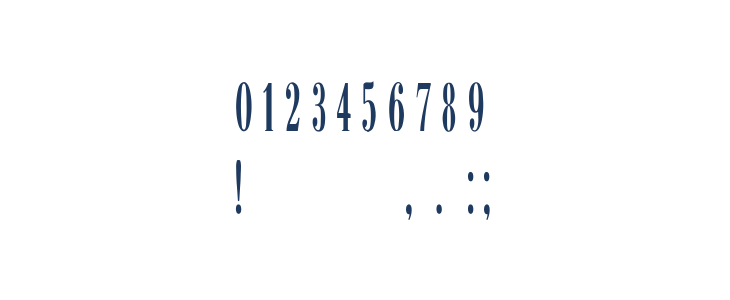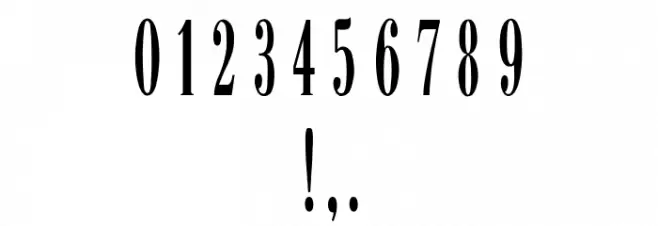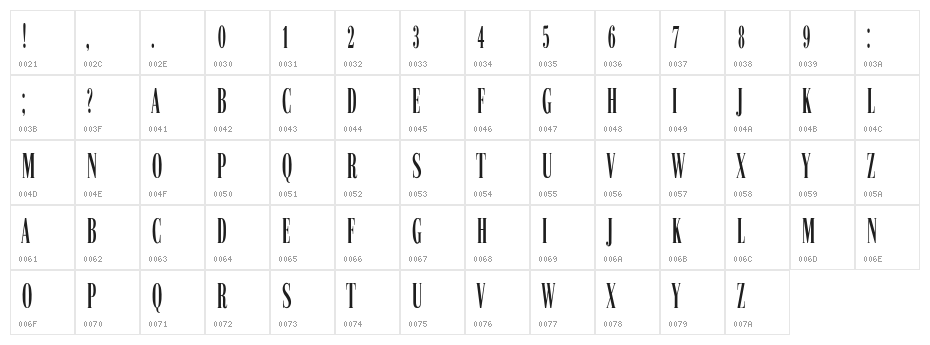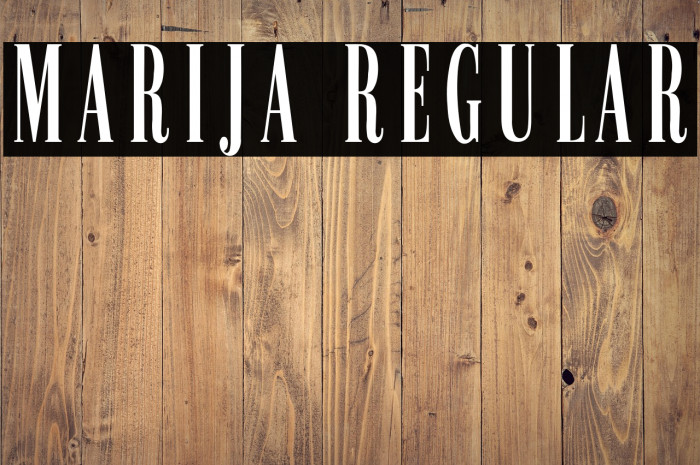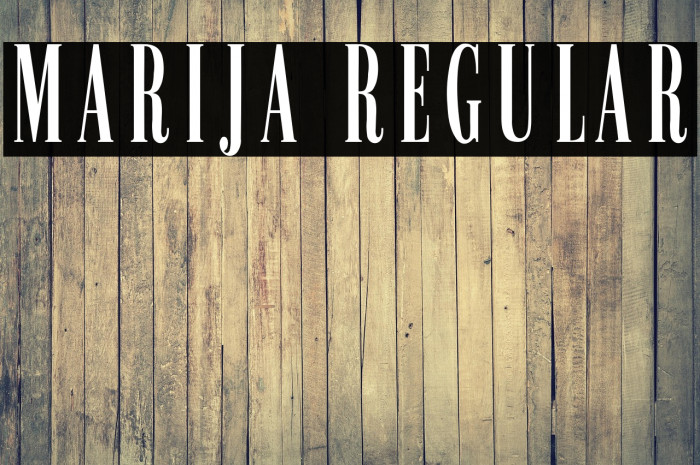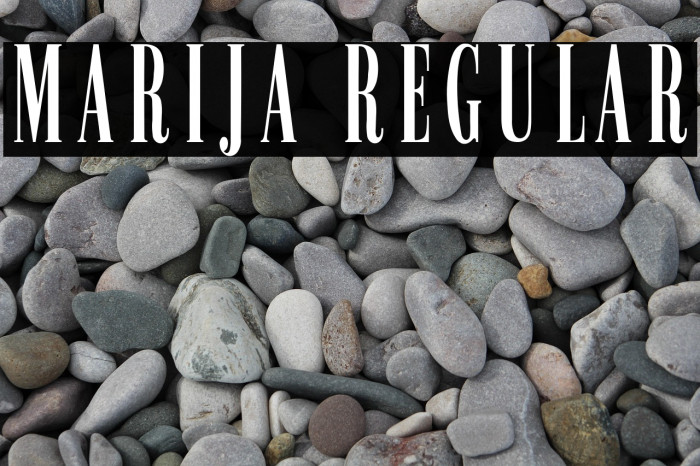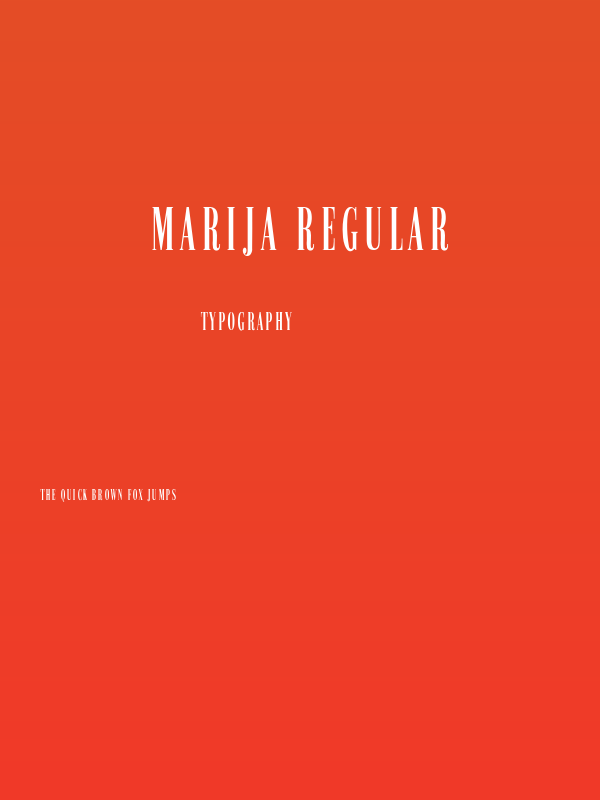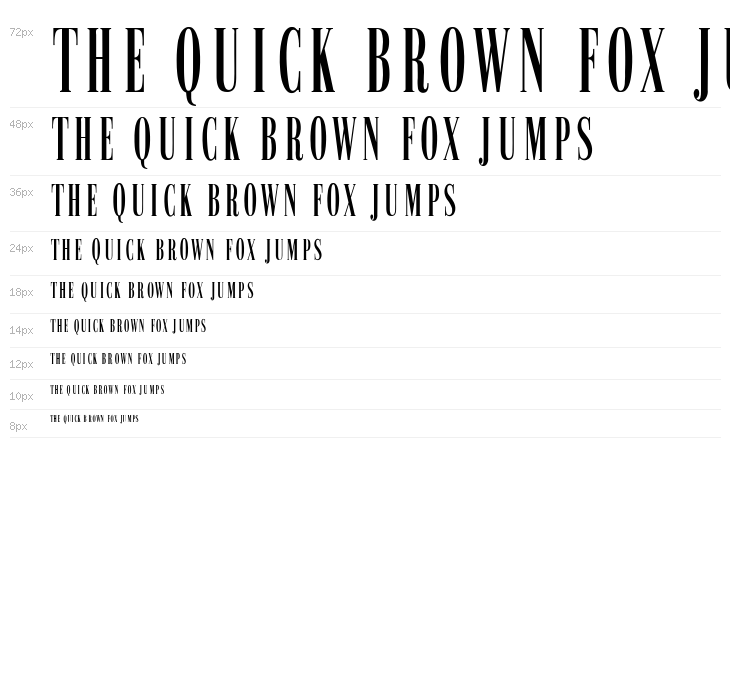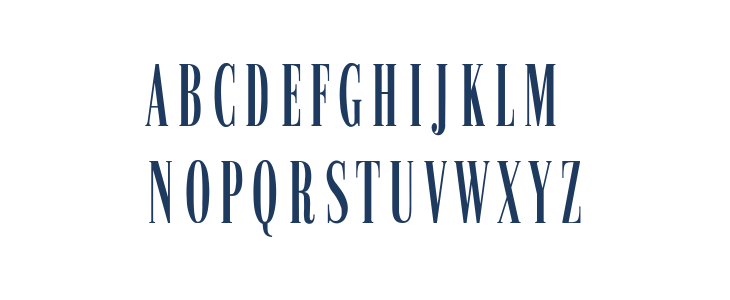
Marija Regular Font
Marija Regular Description
This font features a tall, elegant design with high contrast between thick and thin strokes, giving it a sophisticated and classic appearance. The characters are elongated with a narrow width, contributing to a refined and formal look. The serifs are pronounced, adding to the traditional feel of the typeface. The overall style is reminiscent of vintage typography, making it suitable for projects that require a touch of elegance and timelessness. The numbers and special characters maintain the same stylistic elements, ensuring consistency across all text elements.
A tall, elegant serif font with high contrast and narrow width from Uncategorized fonts.
- Proposed Projects: Ideal for luxury branding, wedding invitations, editorial design, and high-end product packaging.
- Overall Style: Vintage